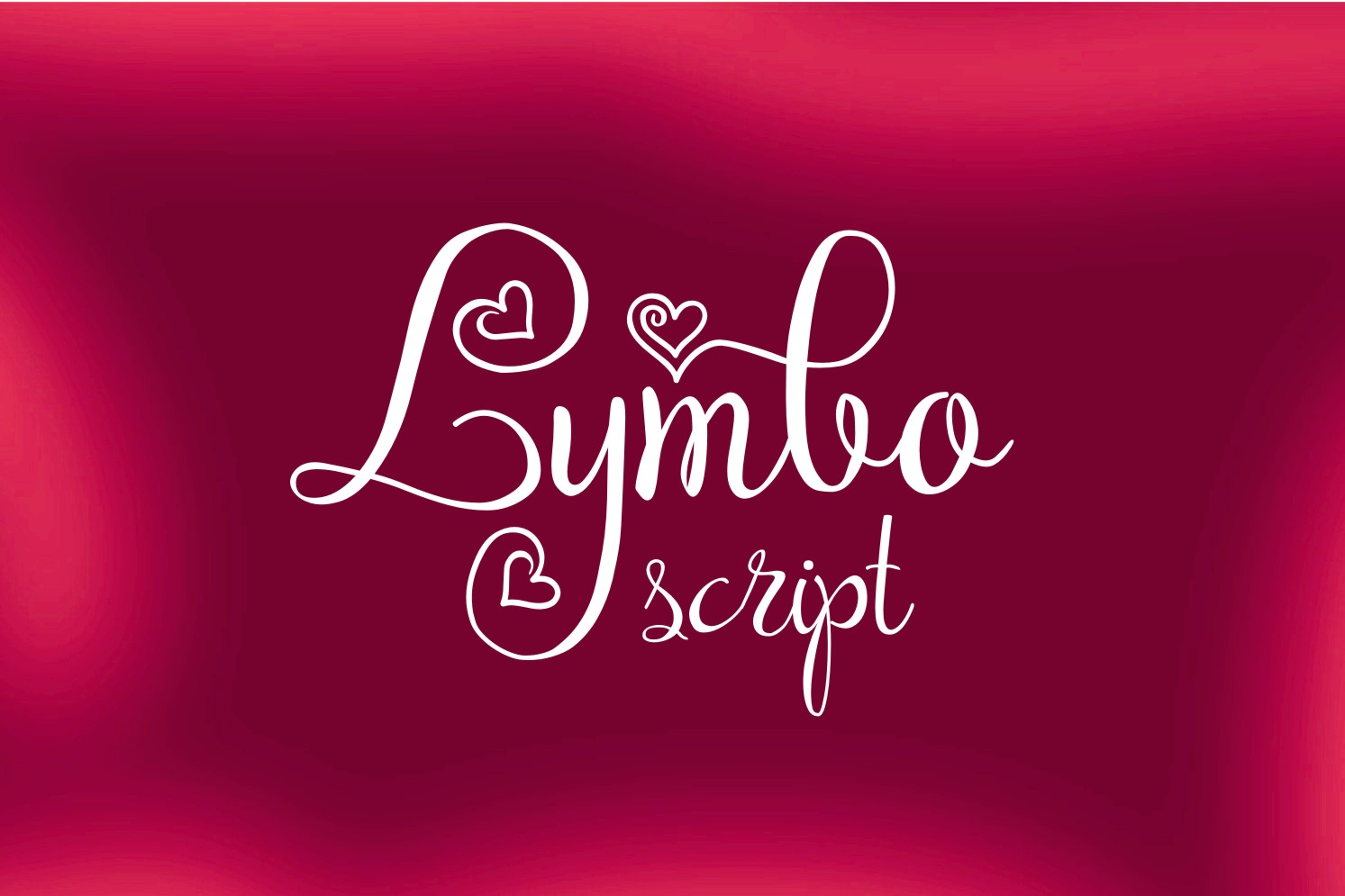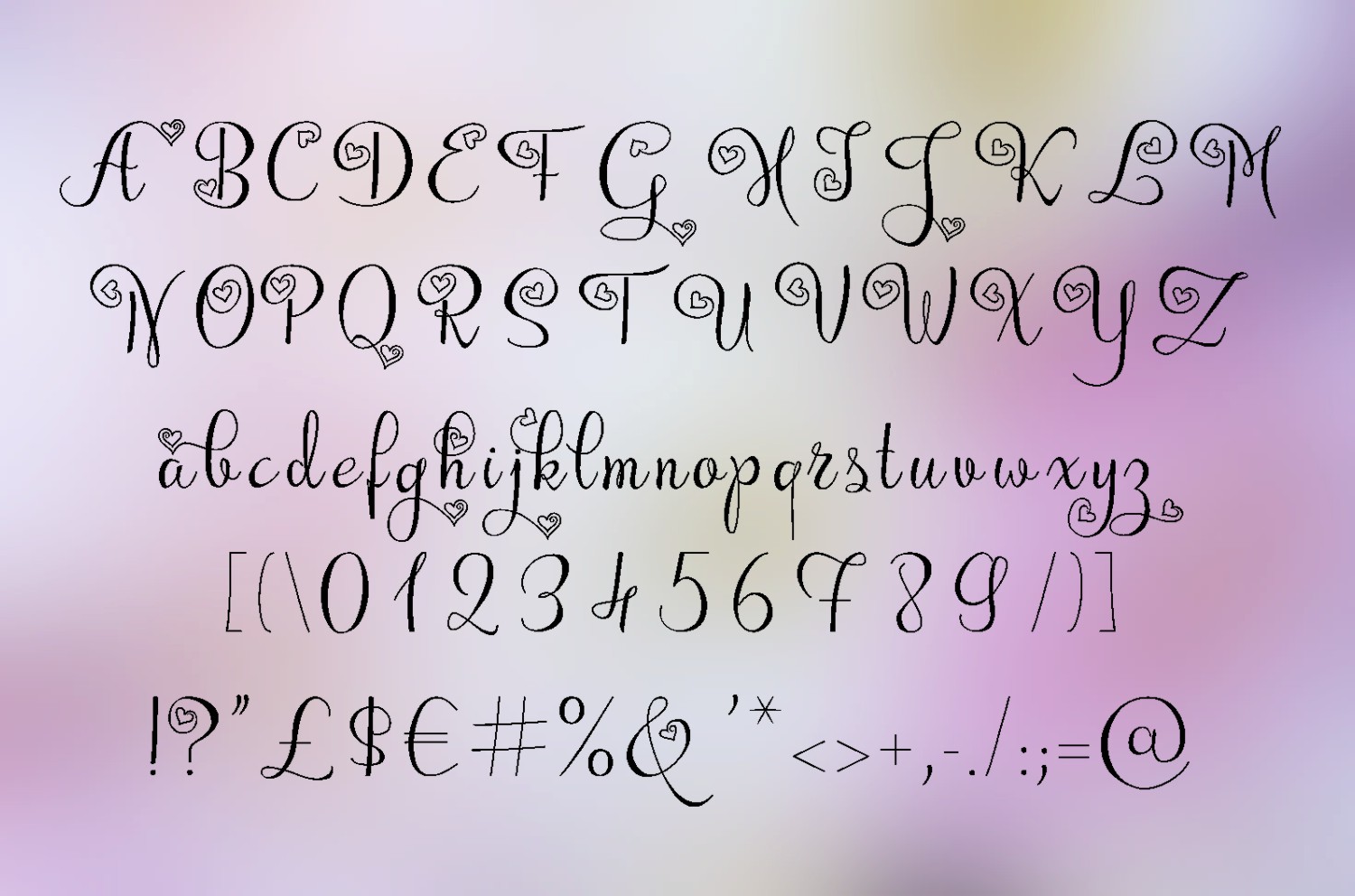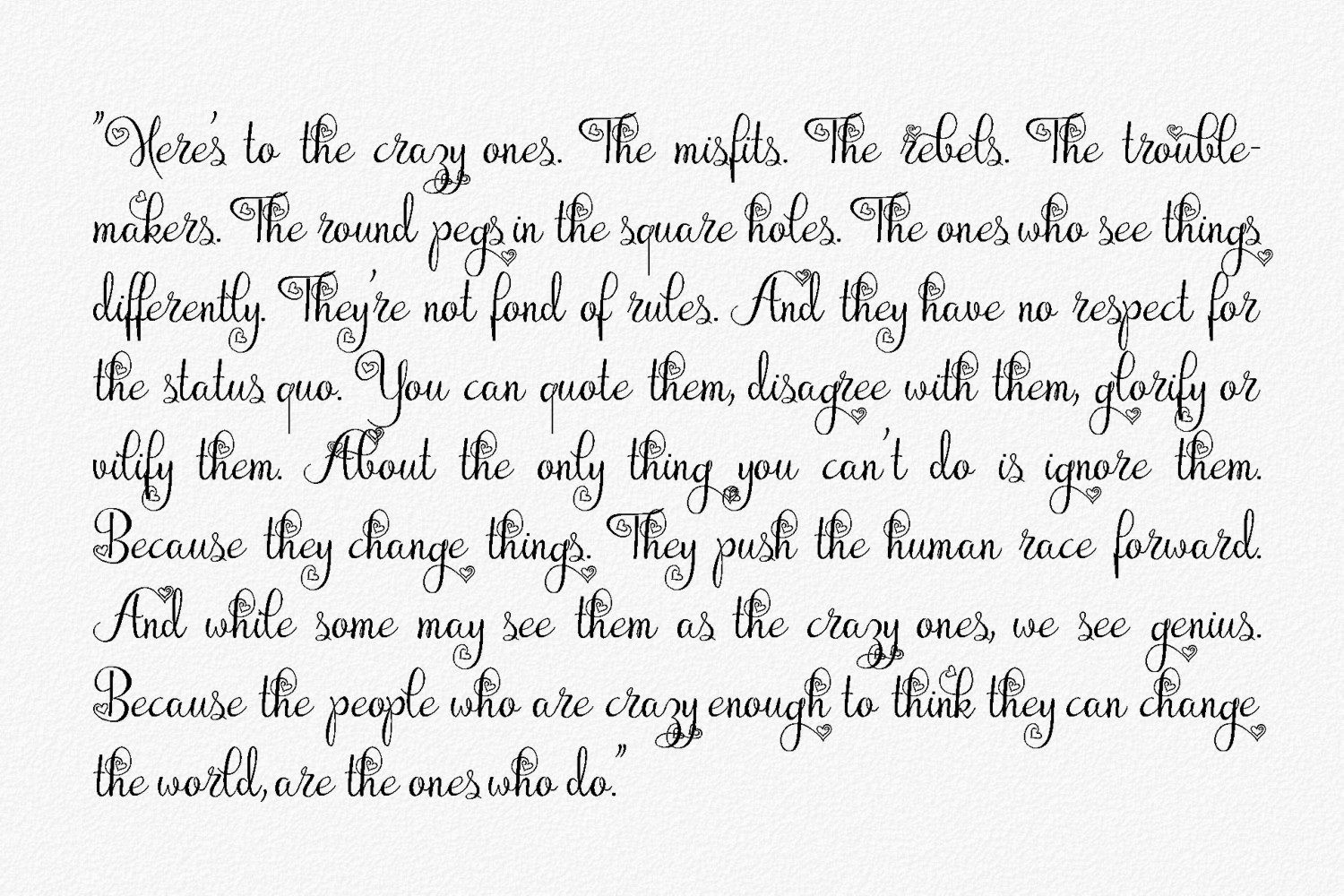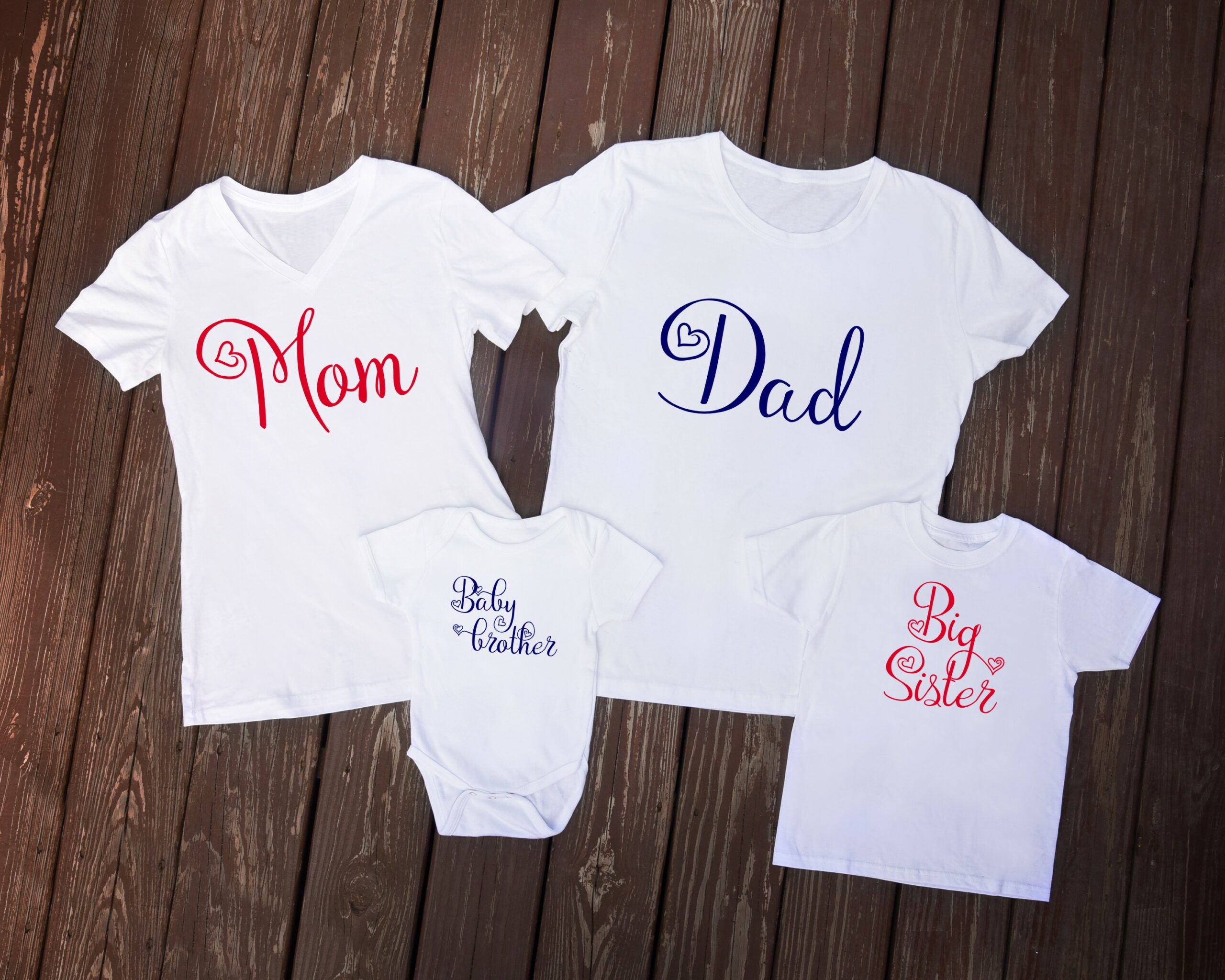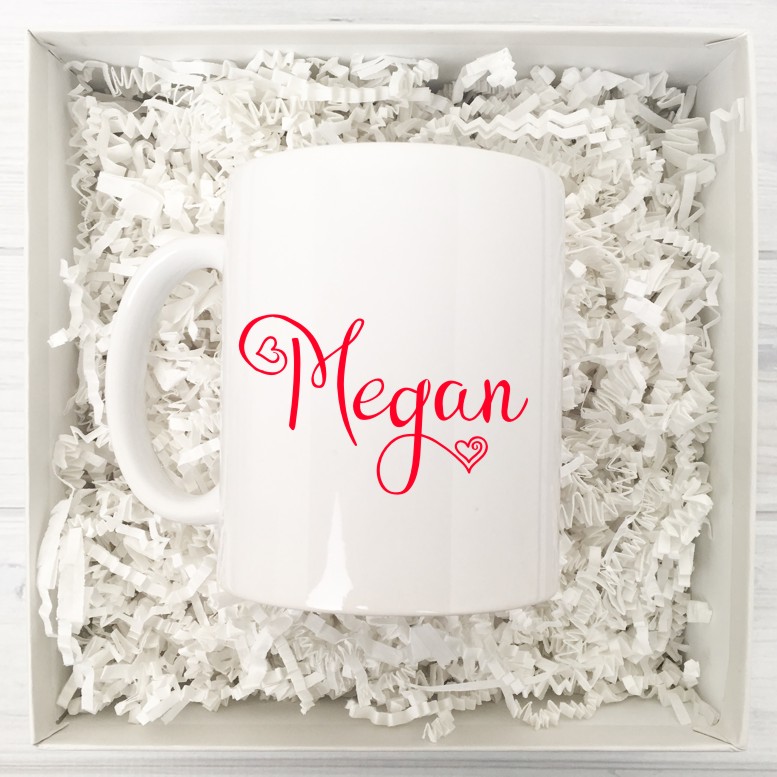
Lymbo Font
About Lymbo Font
Lymbo is a lovely handwritten font, a script with heart-shaped flourishes for truly romantic designs with tons of heartwarming appeal. This font is ideal for thematic designs and can give any project a friendly appeal.